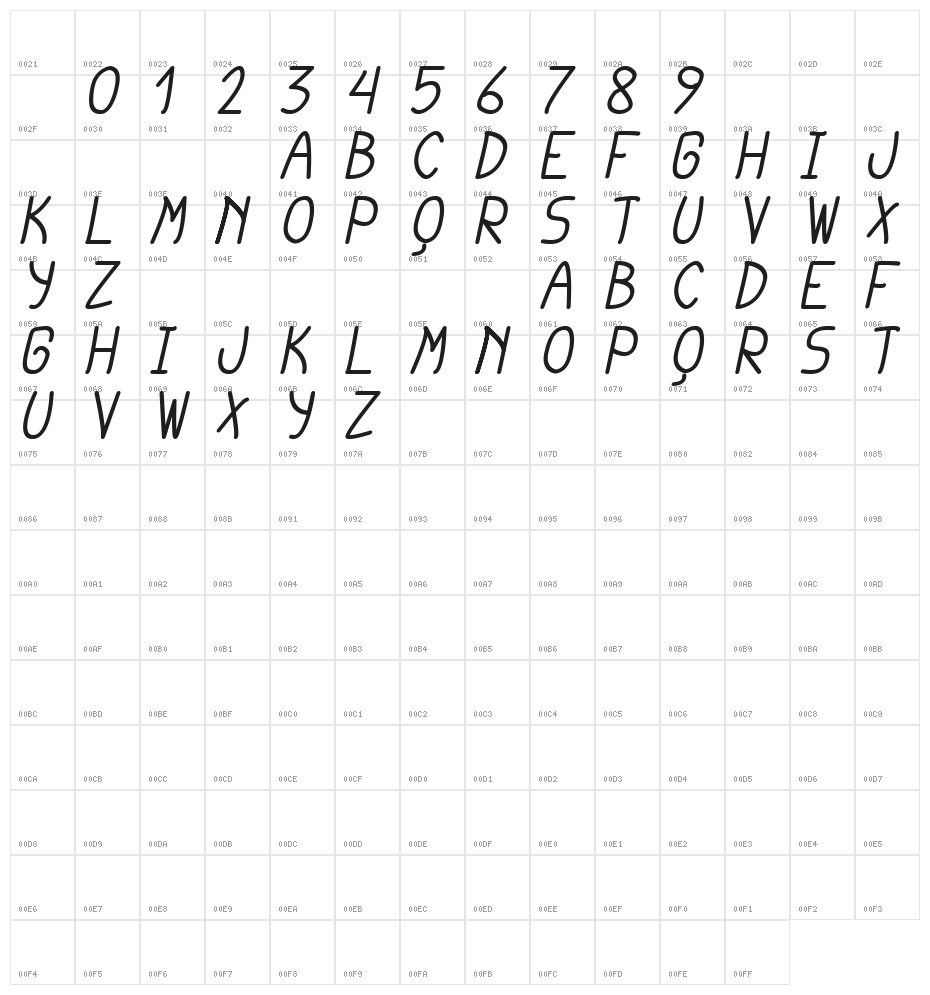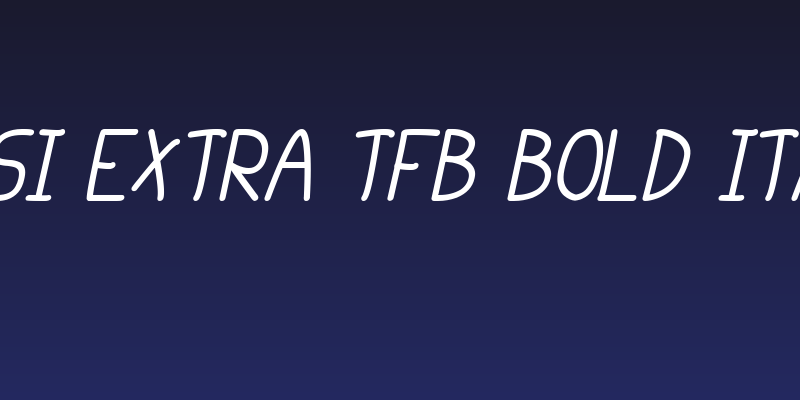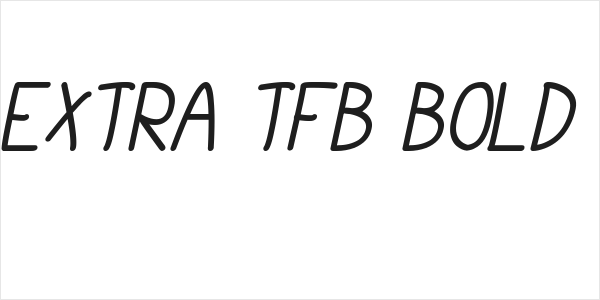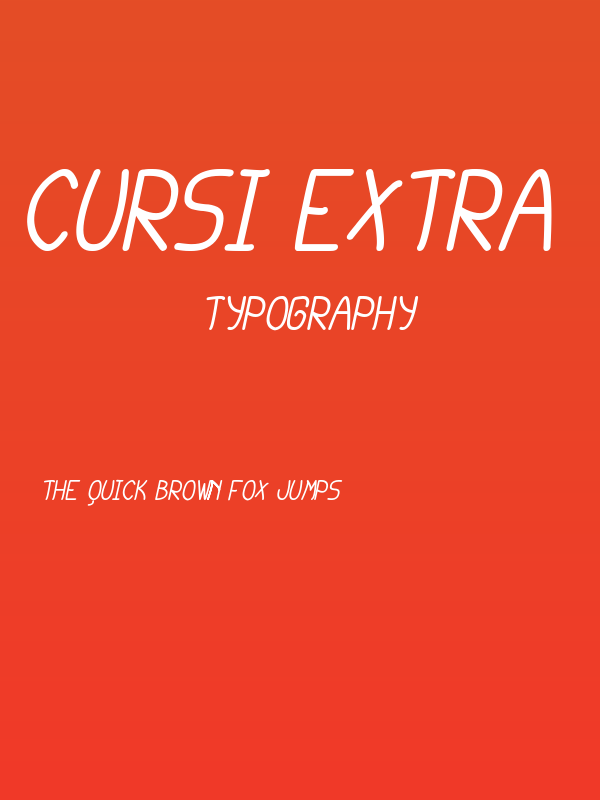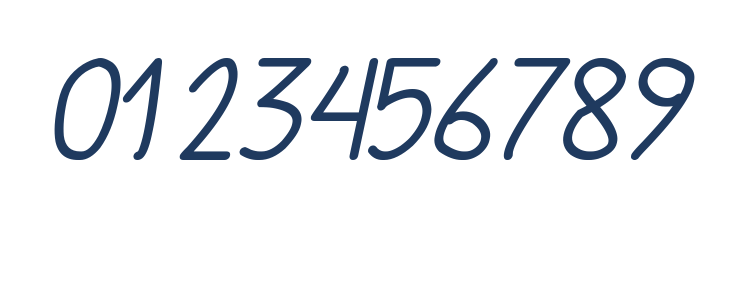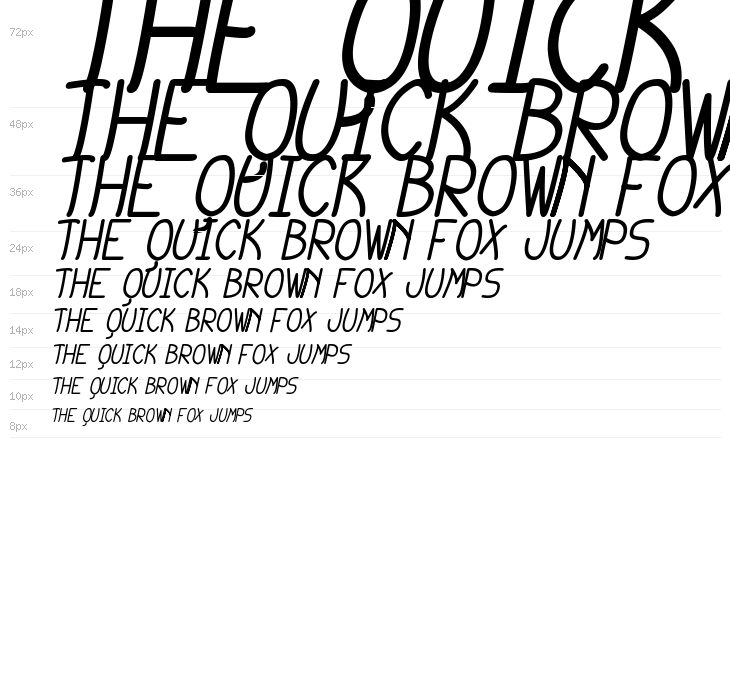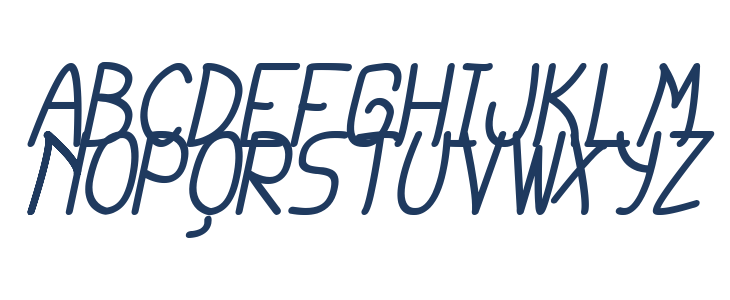
cursi extra tfb bold Italic Font
cursi extra tfb bold Italic Description
This font features a playful and casual handwritten style with a smooth flow and rounded edges. The characters are slightly slanted, giving it an italic appearance, and the strokes are consistent in weight, providing a bold look. The uppercase and lowercase letters maintain a uniform height, contributing to a cohesive and balanced appearance. The numerals and special characters are designed to match the overall style, ensuring versatility across different uses. This font's informal and friendly aesthetic makes it suitable for creative and personal projects.